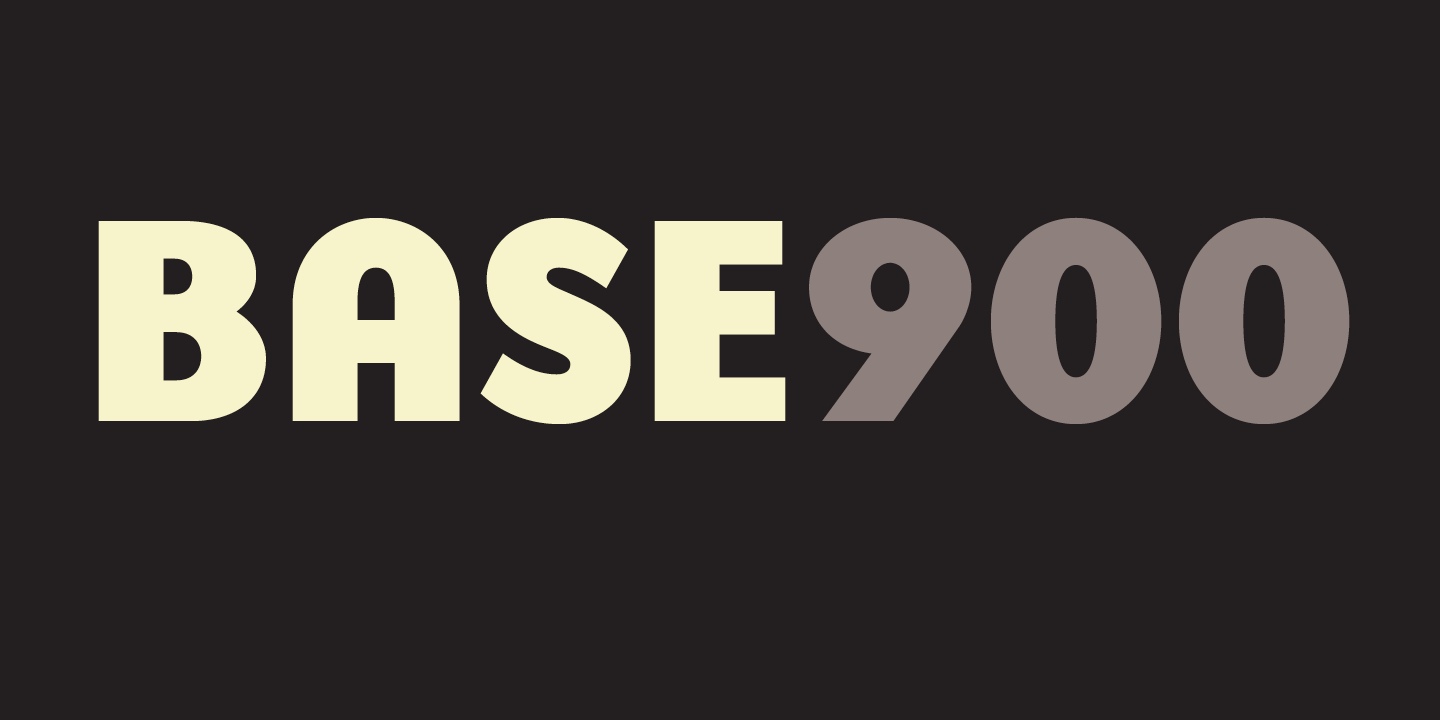
Base 900 Font
The Base 900 Font is a powerful and assertive sans-serif typeface that combines a minimalist aesthetic with a strong, industrial feel. Its geometric letterforms and thick, uniform strokes give it a robust visual identity, making it a perfect choice for projects that demand attention. This font is excellent for headlines, poster design, modern brand logos, and packaging for products that require a tough, no-nonsense aesthetic. The Base 900 Font's unique character also works great for t-shirt designs, social media graphics, and any design that demands attention with a strong, structural presence.
What makes the Base 900 Font so exciting is its raw, uncompromising energy. It’s a font that doesn’t just display text; it communicates strength, stability, and a sense of purpose. Its powerful presence ensures that your message is not just seen, but felt, making it an invaluable tool for designers who want to create bold and memorable visual experiences. The font's solid, confident lines give your design a feeling of power and forward momentum, ensuring your message resonates with an audience.
The Base 900 font family is designed for maximum impact, providing a complete set of uppercase letters, numbers, and punctuation. While it's primarily designed as a display font, its clean lines and clear structure maintain a surprising level of readability, even in complex layouts. The font is available in a versatile format that is compatible with most design software, making it easy to incorporate into your workflow.